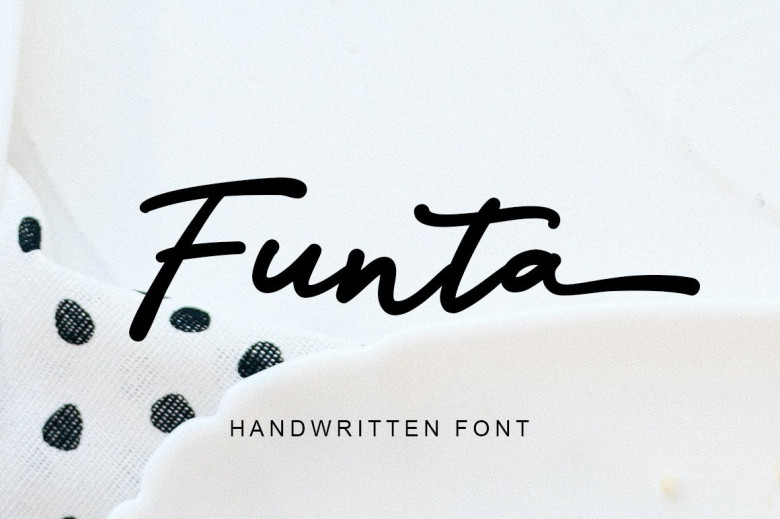
Funta Font
Funta is an elegant handwritten script font used to style text. Characterized by tails and its cursive style, Funta creates the appearance of relaxed or playful text and is commonly employed on invites, greeting cards, headers, posters or simply as written words on backgrounds.
Funta Handwritten Script Font